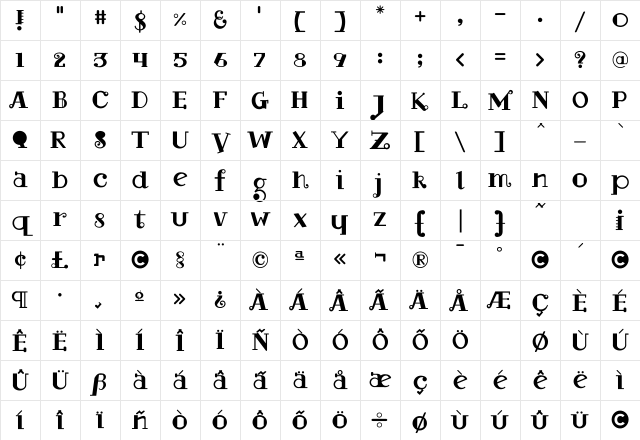
ButtplugTaft Roman Free Font
ButtplugTaft Roman
Style: Roman
Complete ButtplugTaft Roman glyph index. Displaying only characters natively supported by ButtplugTaft Roman font.
Design Context for ButtplugTaft
ButtplugTaft is a composed and adaptable typeface that performs quietly and consistently across a wide range of design contexts.